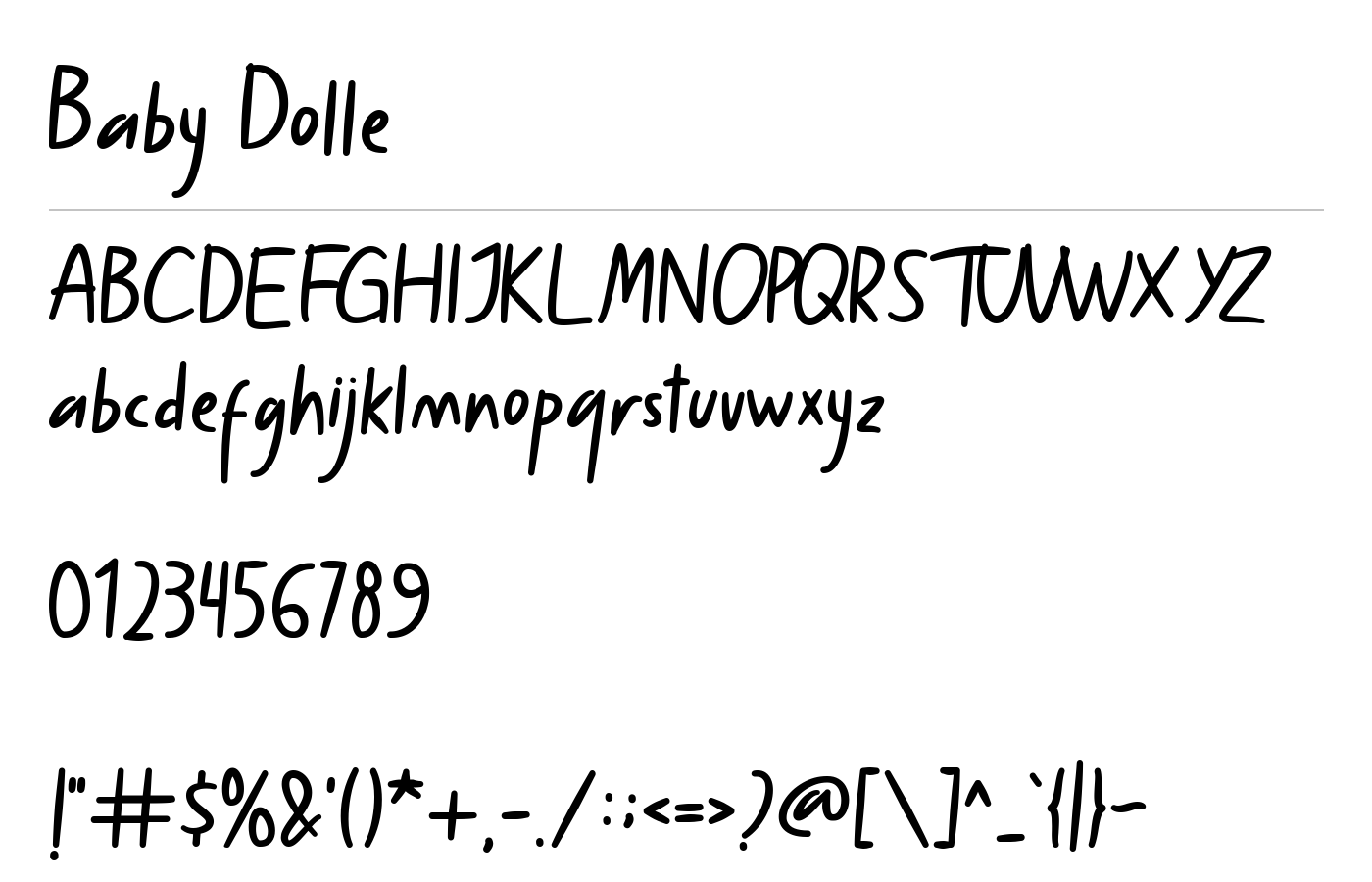
Baby Dolle is a playful, handwritten sans serif font with a casual and friendly vibe. Its tall, slightly irregular letters and light weight create a warm, approachable feel, making it ideal for informal branding, children’s products, and creative projects looking for a personal touch. This font works great for headlines and titles where a charming, humanistic style is desired.
Baby Dolle Font
About Baby Dolle Font
| Font family | Baby Dolle Font |
| Designer | Muhammad Faizal Said |
| Trademark | Muhammad Faizal Said (Ditoollis Project) |